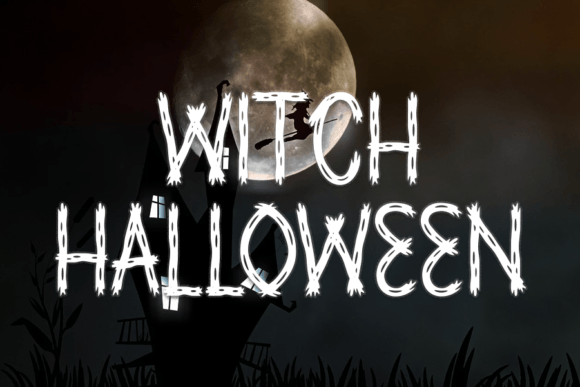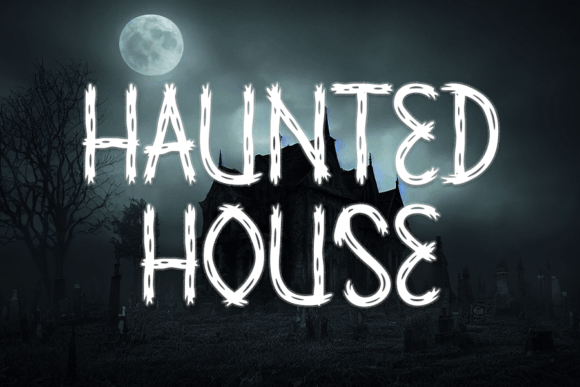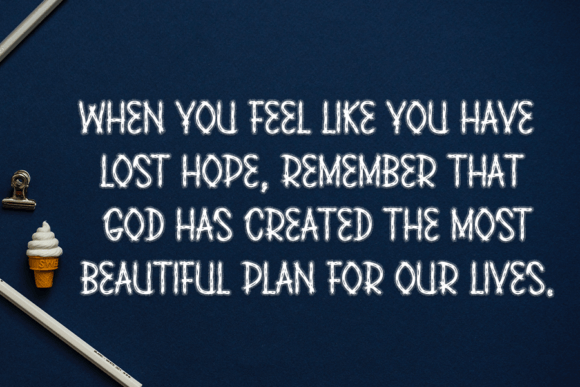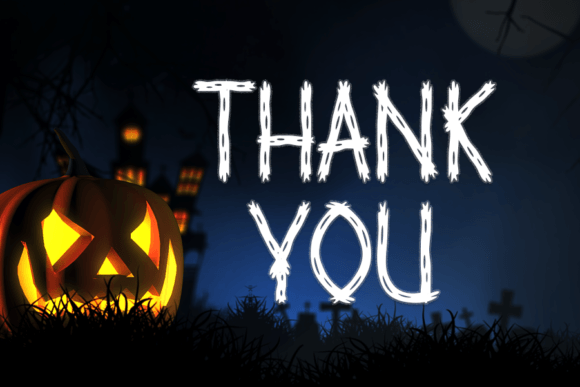
Introducing the Ghost Pumpkin Font: A Cool and Modern Display Font for All Occasions
Are you a designer, crafter, or digital artist looking for a font that can elevate your creative projects? Look no further than the Ghost Pumpkin Font, a cool and modern display font that’s perfect for a wide range of applications. In this article, we’ll take a closer look at the Ghost Pumpkin Font, its features, and how it can become your go-to font for all your design needs.
What is the Ghost Pumpkin Font?
The Ghost Pumpkin Font is a unique and eye-catching display font that’s designed to add a touch of modern style to your projects. Its sleek and elegant design makes it perfect for use in crafts, digital design, presentations, greeting cards, and more. Whether you’re creating a spooky Halloween-themed design or a festive holiday card, this font is sure to impress.
Key Features of the Ghost Pumpkin Font
- Modern and Cool Design: The Ghost Pumpkin Font boasts a modern and cool design that’s sure to grab attention. Its sleek lines and elegant curves make it perfect for creating stunning visual designs.
- Versatile: This font is incredibly versatile and can be used for a wide range of projects, from crafts and digital design to presentations and greeting cards.
- Easily Readable: Despite its unique design, the Ghost Pumpkin Font is easily readable, making it perfect for use in body text as well as headings.
- High-Quality: The Ghost Pumpkin Font is a high-quality font that’s designed to deliver exceptional results. Its crisp and clean design ensures that it looks great in any size or resolution.
Uses of the Ghost Pumpkin Font
The Ghost Pumpkin Font is an incredibly versatile font that can be used in a wide range of projects, including:
- Crafts: Use the Ghost Pumpkin Font to add a personal touch to your craft projects, such as scrapbooking, card making, and DIY decorations.
- Digital Design: This font is perfect for use in digital design, including social media graphics, blog posts, and website headers.
- Presentations: Add a touch of elegance to your presentations with the Ghost Pumpkin Font, perfect for use in PowerPoint, Google Slides, and Keynote.
- Greeting Cards: Create stunning greeting cards for any occasion, from birthdays and holidays to weddings and graduations.
Why Choose the Ghost Pumpkin Font?
So why choose the Ghost Pumpkin Font over other fonts? Here are just a few reasons:
- Unique Design: The Ghost Pumpkin Font boasts a unique and eye-catching design that’s sure to grab attention.
- High-Quality: The Ghost Pumpkin Font is a high-quality font that’s designed to deliver exceptional results.
In conclusion, the Ghost Pumpkin Font is a cool and modern display font that’s perfect for designers, crafters, and digital artists. Its unique design, versatility, and high-quality make it an excellent choice for a wide range of projects. Whether you’re creating crafts, digital designs, presentations, or greeting cards, this font is sure to become your go-to font for all occasions. So why wait? Download the Ghost Pumpkin Font today and start creating stunning designs that are sure to impress!